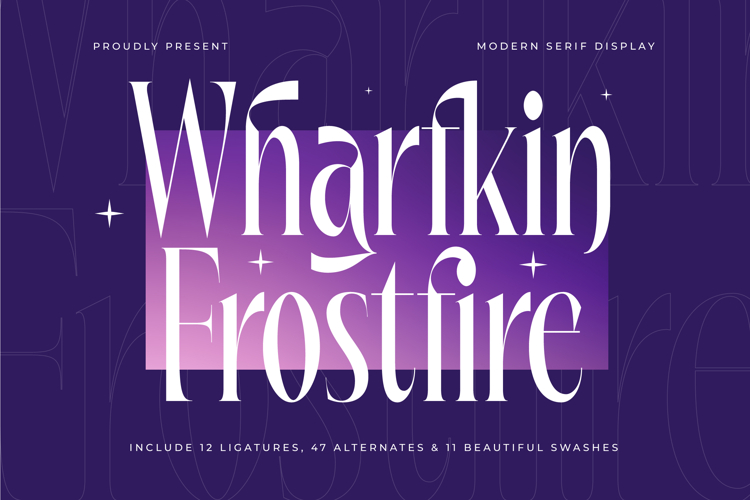
Wharfkin Frostfire - Modern Serif Display
Wharfkin Frostfire Typeface is a modern serif display font that embodies refinement, drama, and contemporary elegance. With 12 ligatures, 47 stylistic alternates, and 11 decorative swashes, this typeface offers an extensive range of design possibilities. Its tall proportions, high-contrast strokes, and delicate curves give it a stylish and commanding presence, making it the perfect choice for projects where text must exude luxury and artistry. Wharfkin Frostfire seamlessly blends classical serif sophistication with a modern flair, ensuring timeless appeal.